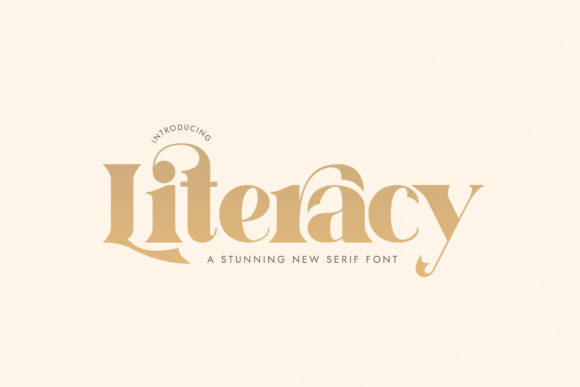
Embrace the allure of Literacy Font, a captivating serif font, mindfully crafted by Salt and Pepper Fonts, designed to add an air of sophistication and elegance to your creative projects. Picture perfect for wedding labels, this font exudes a timeless beauty, enhancing the significance of your special day.
Immerse yourself in a world of elegance with Literacy Font. Its crisp, clean lines and graceful curves dance together in perfect harmony, creating a visual feast for the eyes. Watch as your words come alive, carrying a sense of timeless charm and allure.
With Literacy Font, the possibilities are truly endless. Its versatile nature lends itself effortlessly to a vast array of designs, from wedding invitations and labels to branding materials and social media posts. Embark on a creative journey, allowing Literacy Font to guide you towards stunning outcomes.
Step into a realm of boundless creativity with Literacy Font. Its modern and clean aesthetics provide a blank canvas upon which your imagination can run wild. Dare to explore its endless variations, discovering new and exciting ways to express yourself.
Unlock the captivating power of Literacy Font and witness the transformation of your designs. Let your words dance across the page, imbued with timeless elegance and grace. Embrace the magic of Literacy Font and elevate your creations to new heights.